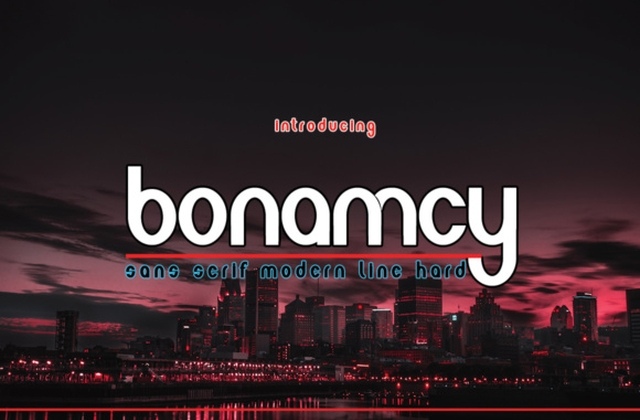
Bonamcy Font
Bonamcy Font is perfect for playful branding, children's book design, toy packaging, educational materials, fun social media graphics, creative app interfaces, friendly logos, youth marketing campaigns, entertainment posters, and cheerful greeting cards.
What makes Bonamcy Font so exciting is its delightful personality that brings warmth and approachability to any design project. This charming typeface combines friendly character with professional quality, creating typography that instantly connects with audiences and conveys positive energy and creative spirit.
The Bonamcy Font family includes regular, medium, and bold weights, featuring rounded letterforms, playful character variations, and whimsical design elements that provide designers with versatile options for creating engaging and memorable typography.
The carefully designed letterforms of Bonamcy Font feature friendly curves and approachable character shapes that create instant visual warmth and accessibility. Each glyph has been crafted to maintain excellent readability while preserving the font's distinctive personality traits that make it memorable and engaging. The font's balanced proportions and optimized spacing ensure consistent performance across all applications and sizes.
Creative professionals and family-oriented brands consistently choose Bonamcy Font for projects requiring approachable design and positive communication. The comprehensive character set includes uppercase and lowercase letters, numerals, punctuation marks, and international accents, providing complete support for diverse design applications and global market requirements.
The versatile appeal of Bonamcy Font makes it equally effective in both traditional print and modern digital environments. Whether developing children's educational content, creating family-friendly brand identities, or designing engaging social media campaigns, this remarkable typeface delivers consistent charm that resonates with audiences of all ages.